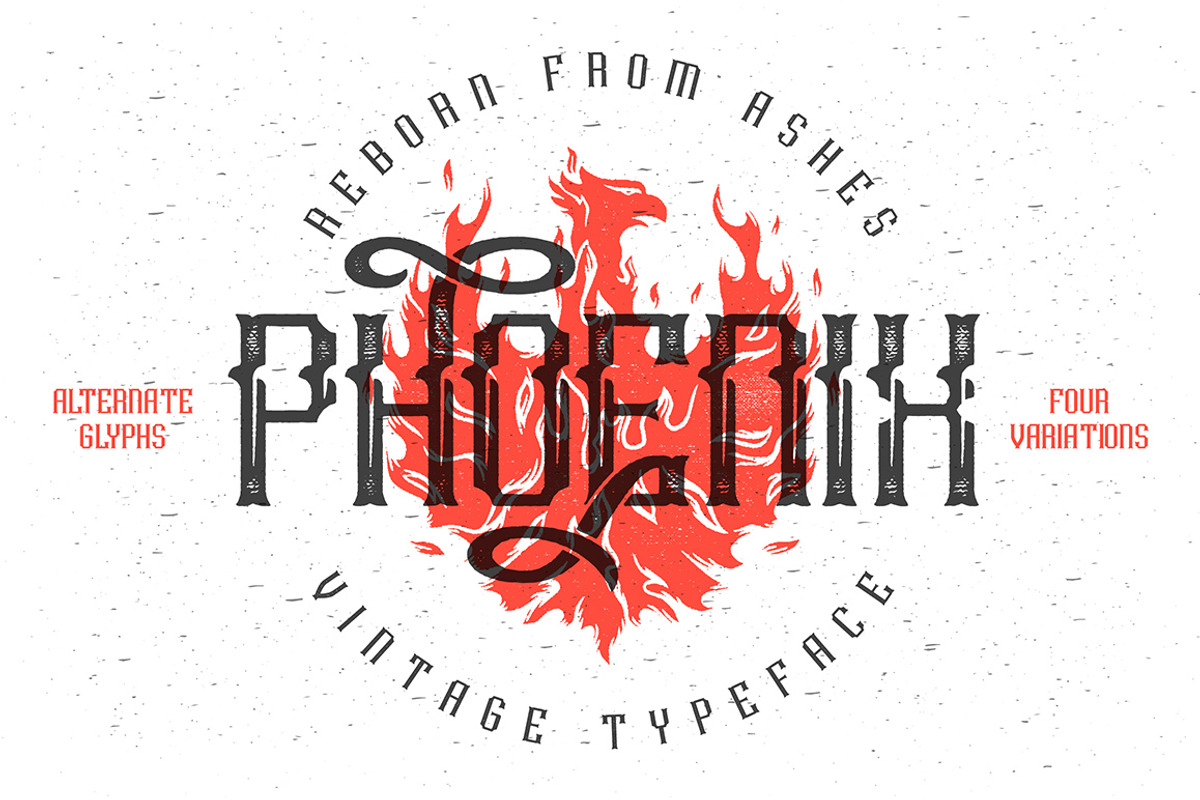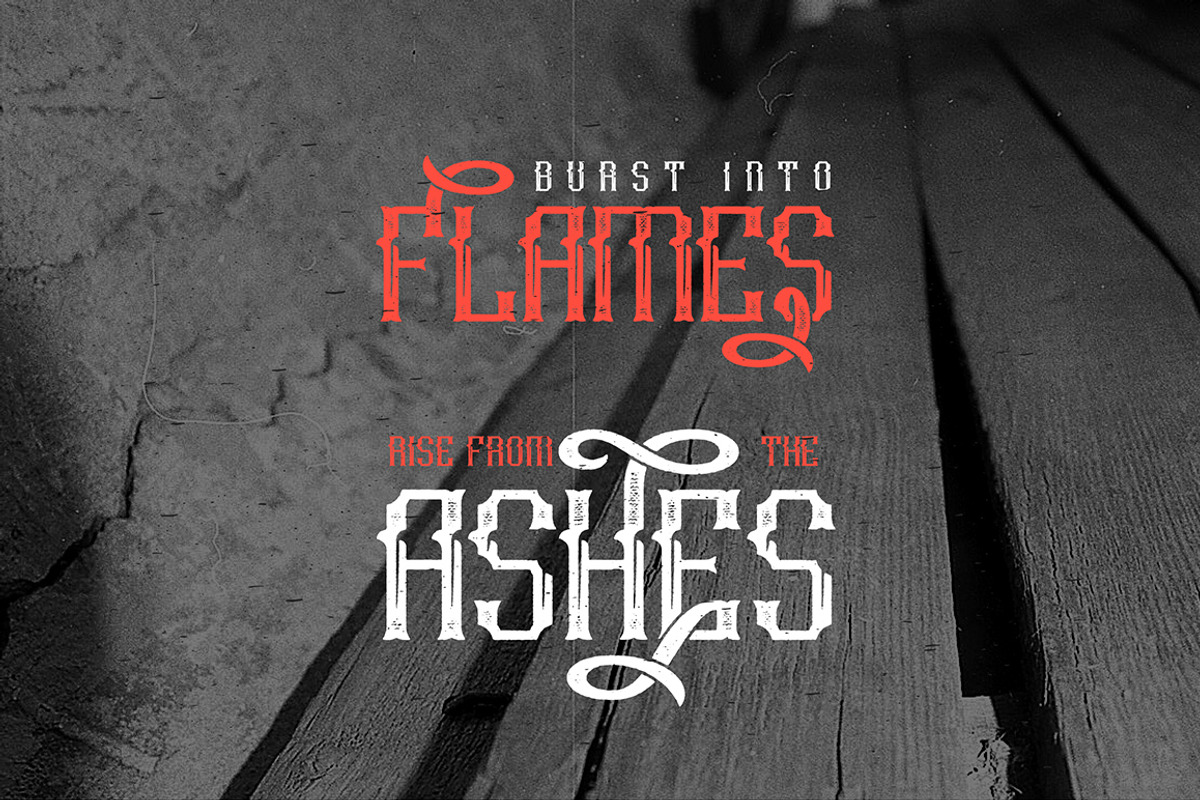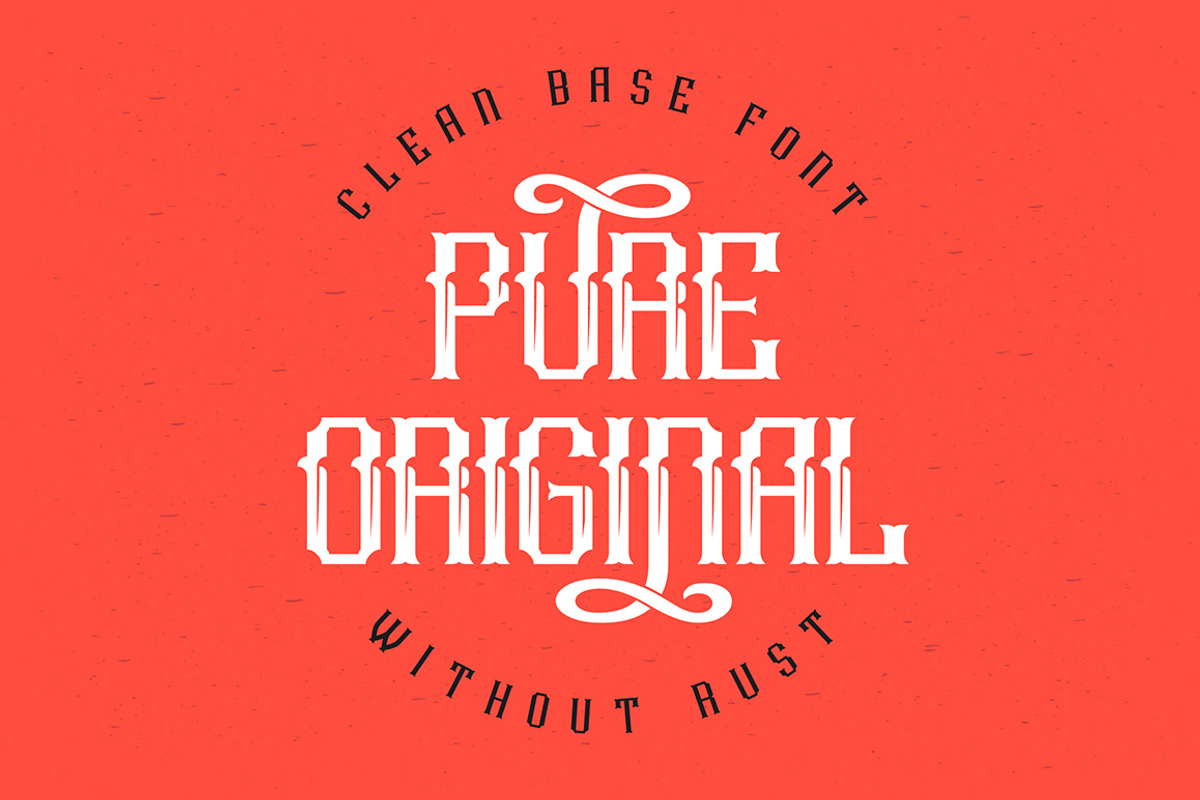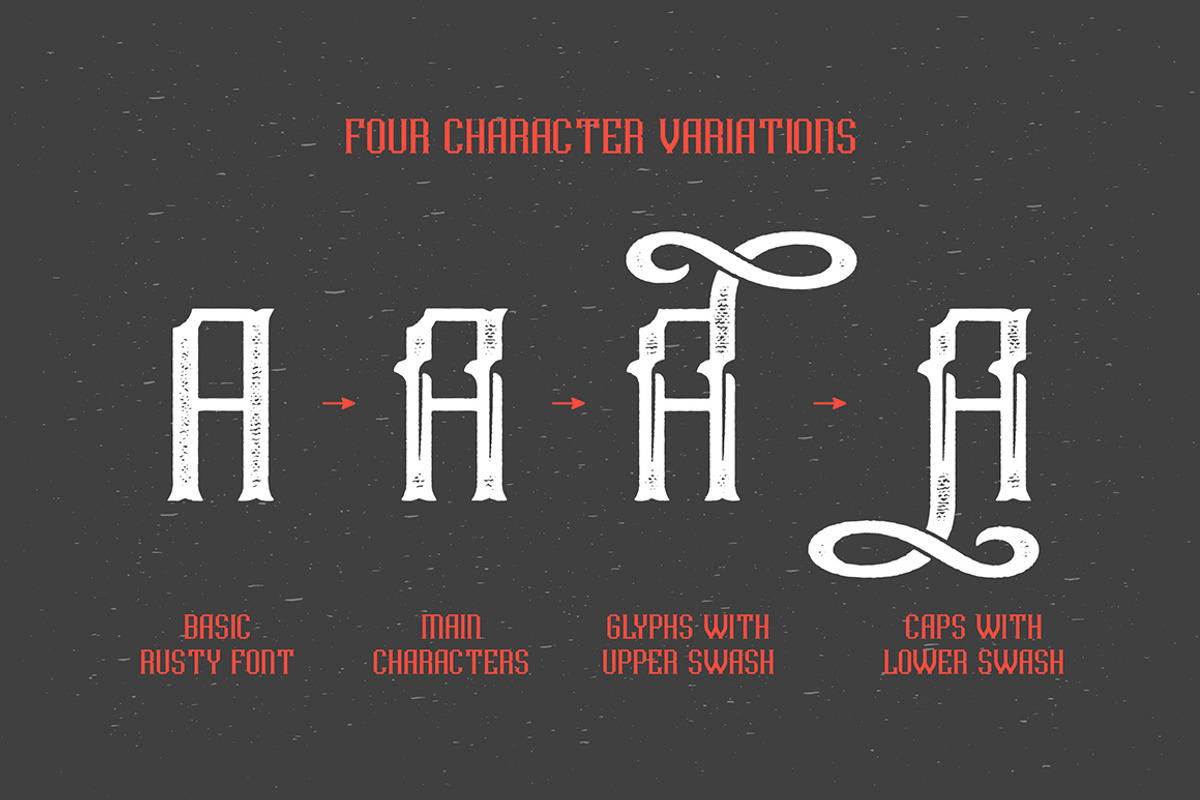
Phoenix typeface
Phoenix typeface by Gleb Guralnyk is a font selected for branding, posters, packaging, typography.
- Also original clean font (without rough effect) is included.
Note: Fonts contains ONLY latin letters (no digits or other glyphs).
- Also original clean font (without rough effect) is included.
- Note: Fonts contains ONLY latin letters (no digits or other glyphs).
Why Phoenix typeface is worth a look
Phoenix typeface by Gleb Guralnyk fits naturally into Branding, posters, packaging, typography.